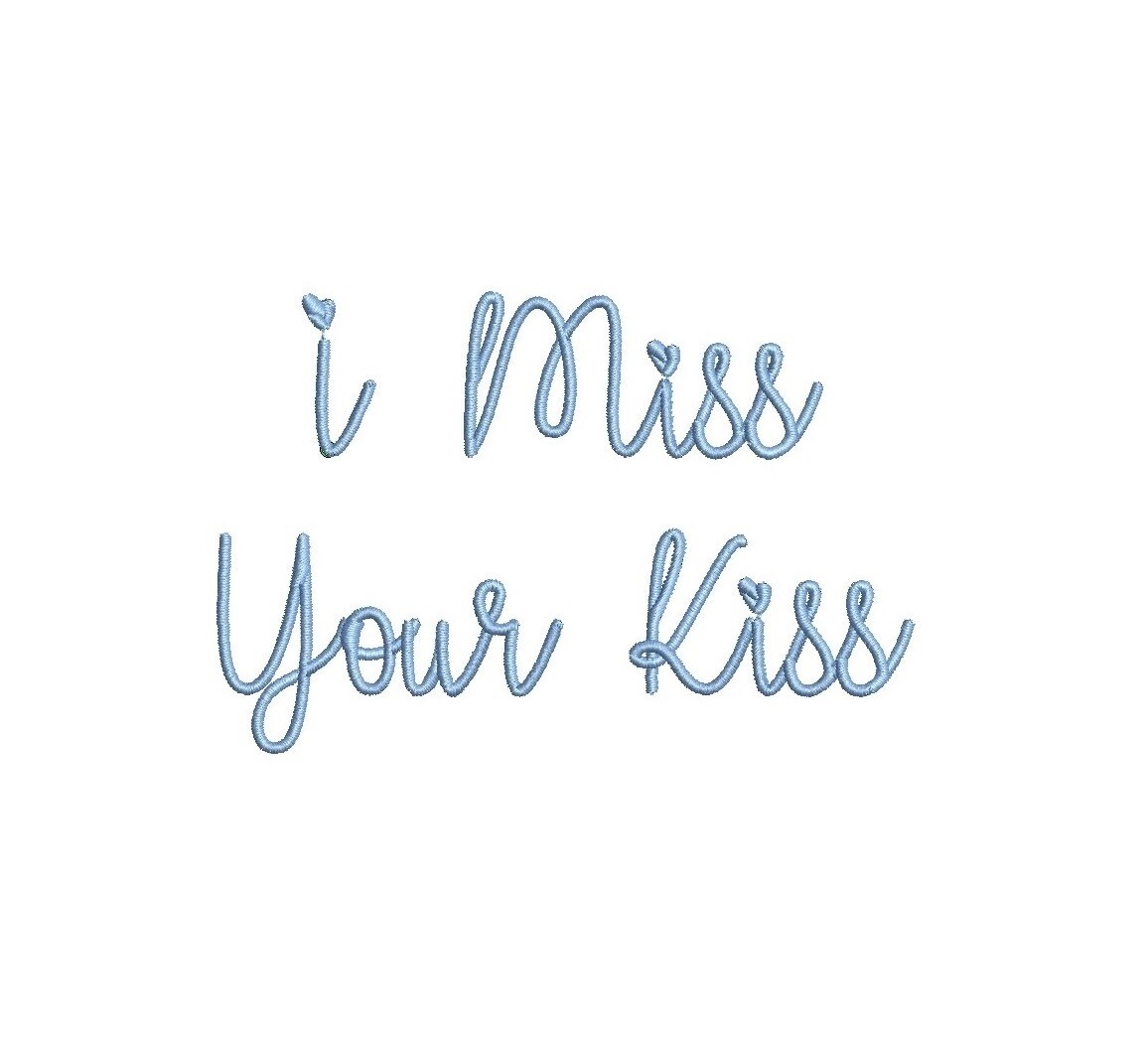
Unleash your emotions with the I Miss Your Kiss Regular ESA font, a tender blend of sentiment and style, perfect for your embroidery designs. This heartfelt font is meticulously designed to evoke affection and nostalgia in your creations. Compatible with Wilcom Studio e4.5.6 and Hatch 3 versions and up, it seamlessly integrates into your digitization process. Express your love through endearing monograms, heartfelt logos, and touching decorative accents with this versatile font. Elevate your embroidery projects with a touch of romantic flair and make them truly unforgettable. Get the I Miss Your Kiss Regular ESA font now and let your stitches speak from the heart.